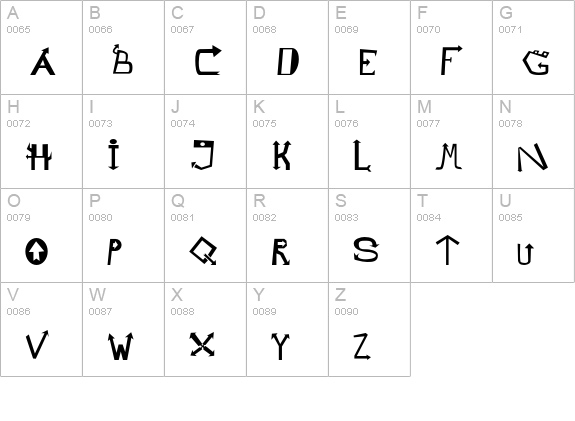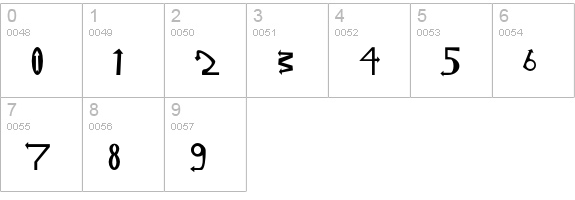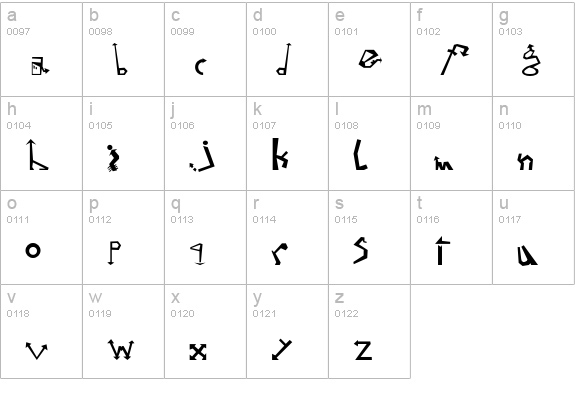
StrelochnikC Font Details
StrelochnikC font is a unique and eye-catching typeface that combines modern aesthetics with a touch of vintage charm. Its bold, arrow-like design makes a strong statement and is perfect for creating impactful headlines, logos, and branding materials. The sharp angles and geometric shapes of this font give it a dynamic and energetic feel, making it ideal for projects that require a sense of movement and direction. Best of all, StrelochnikC font is completely free to download at FontsMarket.com. Whether you're a designer looking to add a bold edge to your work or a creative looking for a fresh and dynamic font for your next project, StrelochnikC is sure to make a lasting impression. Download it today and let your creativity take flight with this striking and versatile typeface.